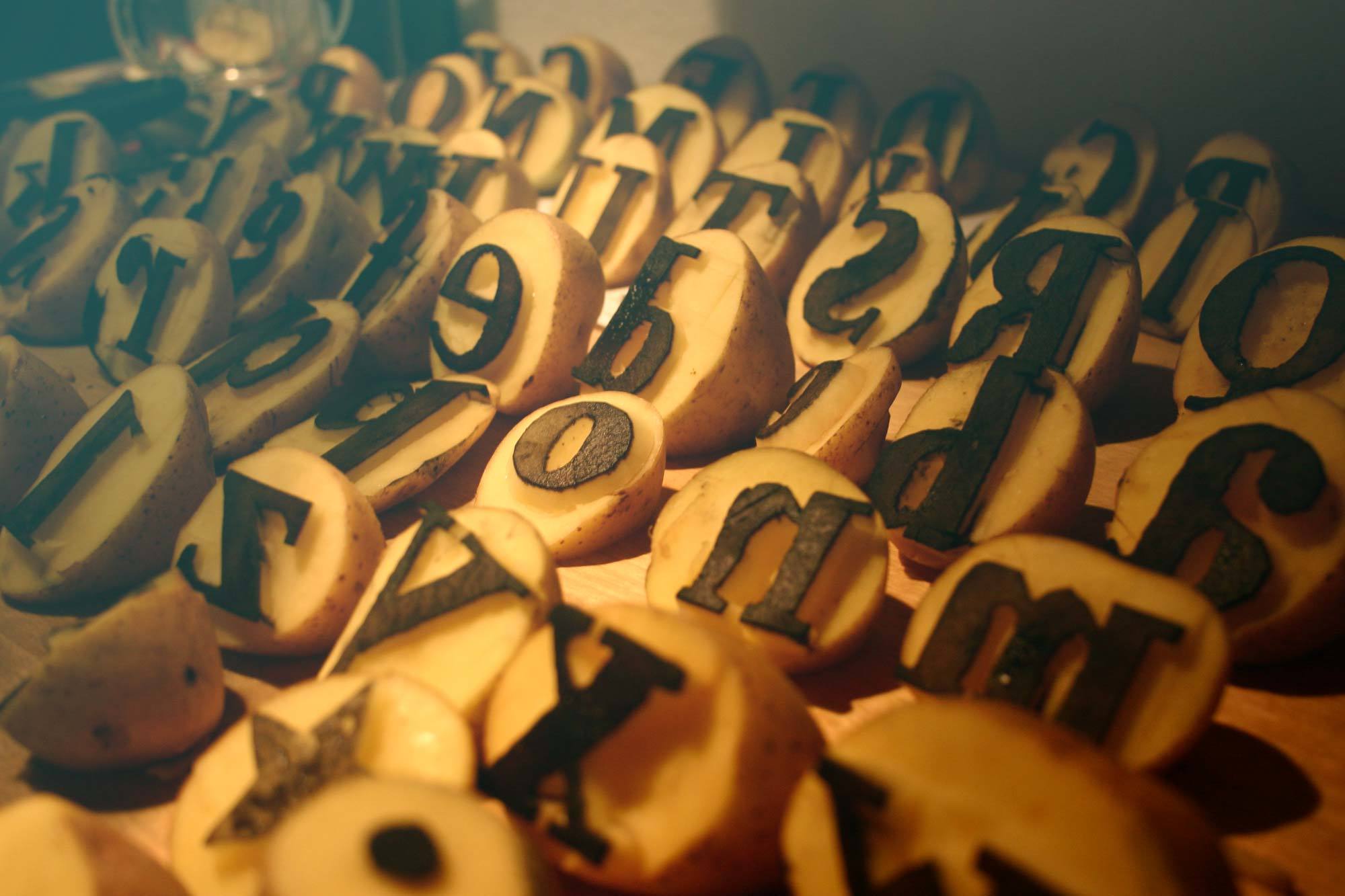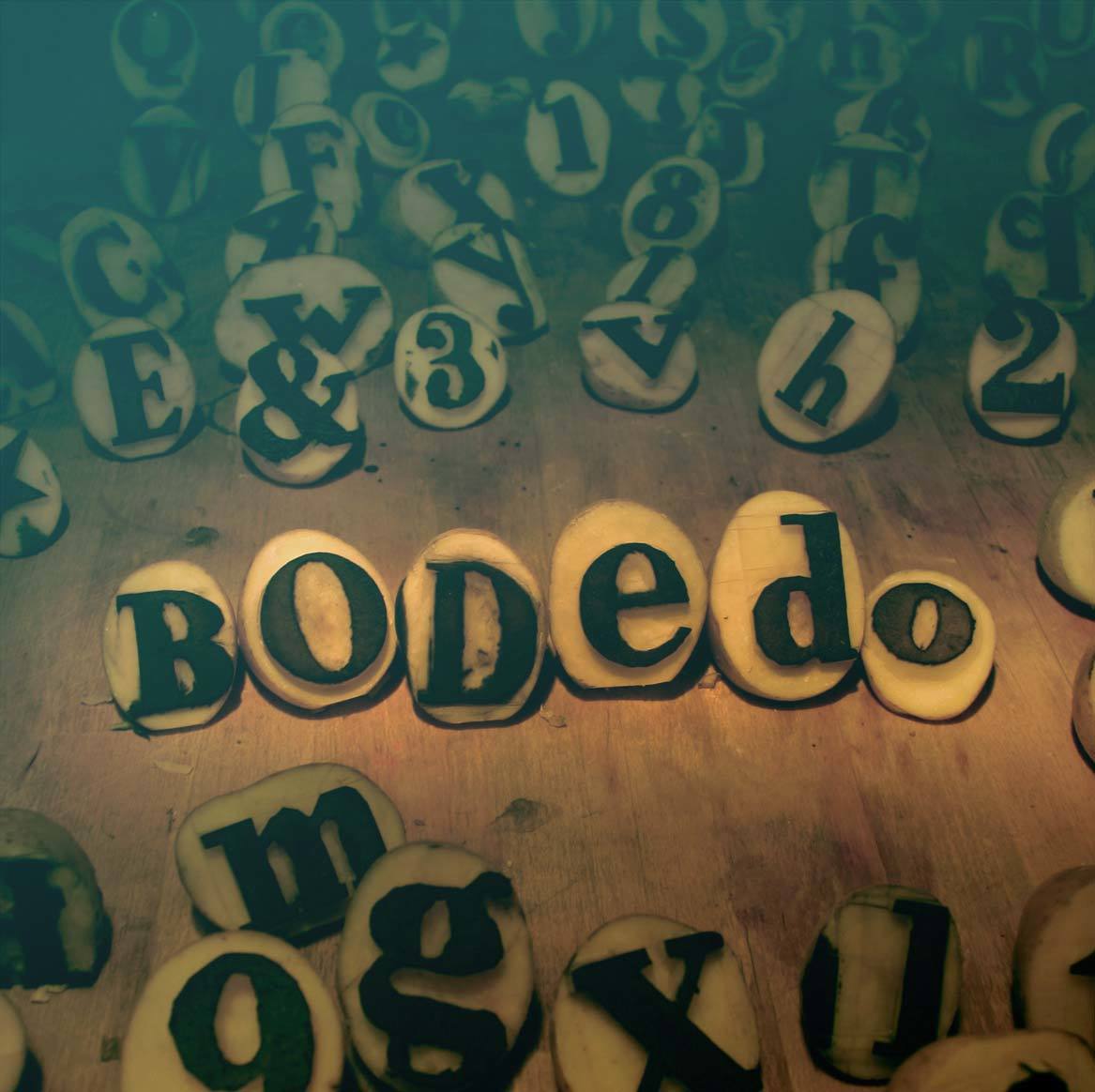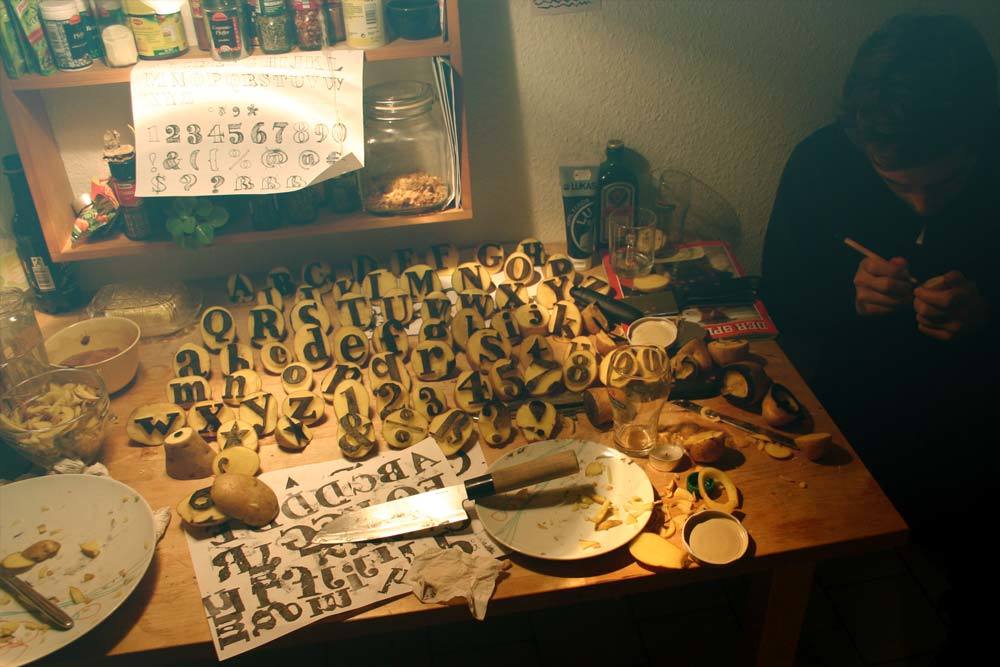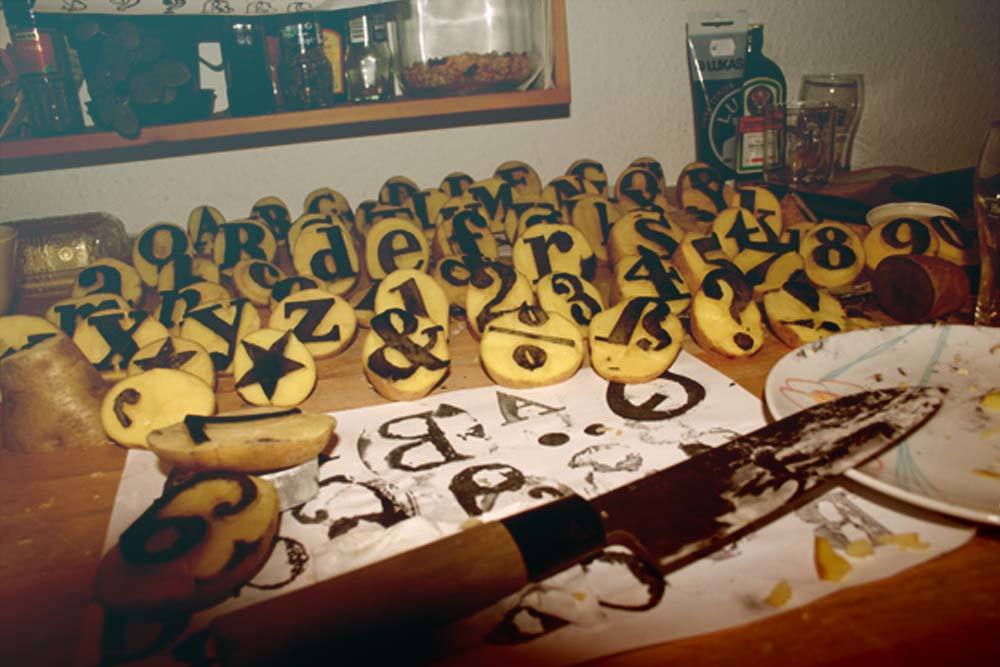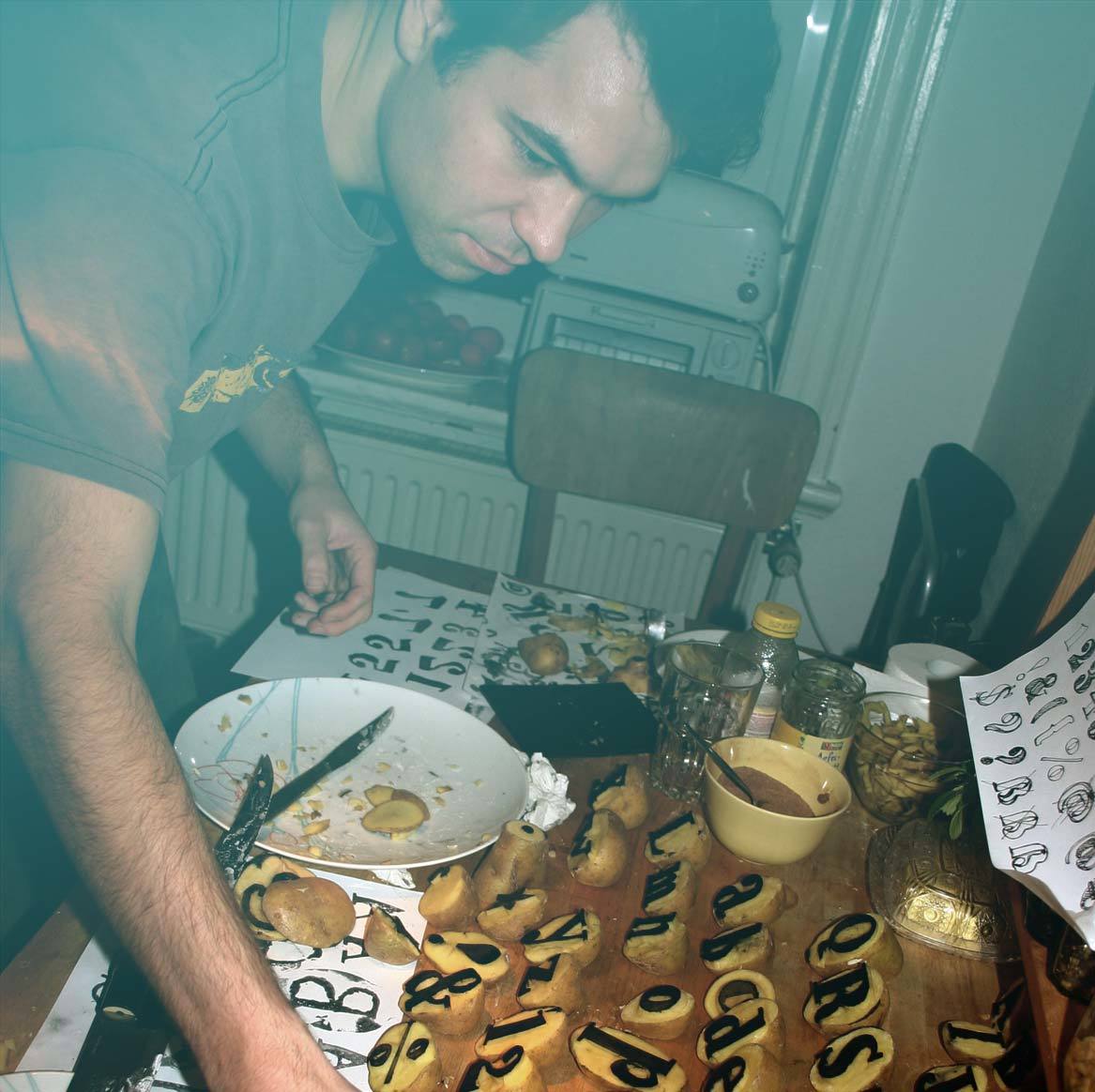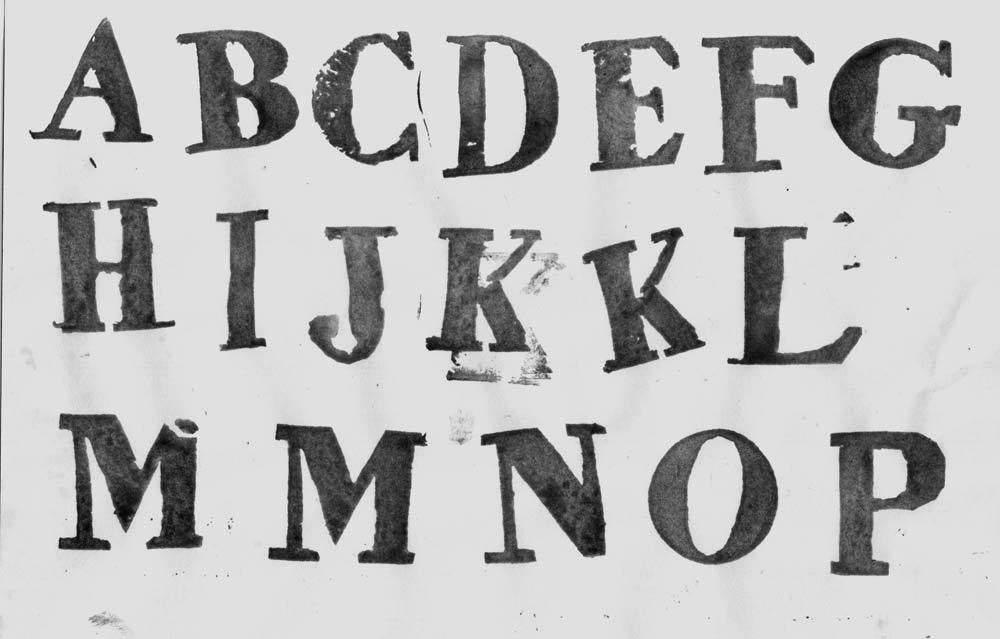
HVD Bodedo
Is it possible to carve a Bodoni out of Potatoes? We tried it…
Type design is mostly precisely drawing vector curves, printing proofs and judge the grey value with a minus lense. But it can also be a group of friends coming together to have an experimental typographic evening. We had the idea to make a Bodoni interpretation with potato stamps, so we bought 8kg of potatoes, some knifes and carved a long, long evening in the kitchen. When we finally had the full aphabet we stamped it on paper, made a font out of this and called it Bodedo.
Bodedo
Printing
Halfway done
Cutting
Printed & Scanned
“I never thought that I will see this typeface in so many supermarkets all over the world.”